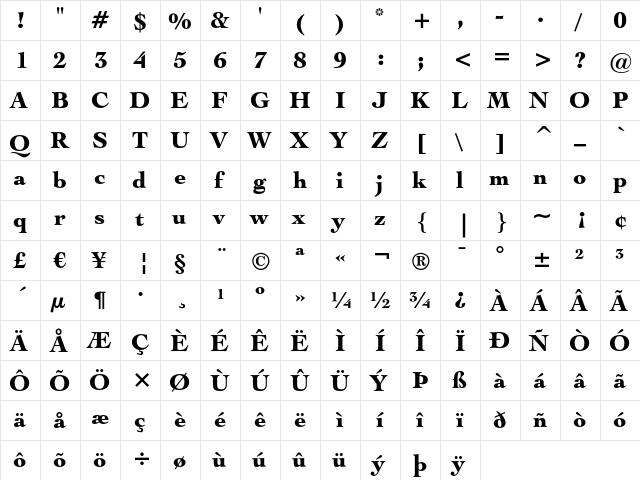
Engravers' Oldstyle 205 Black
Design Context for Engravers' Oldstyle 205 Typeface
Engravers' Oldstyle 205 carries the refined structure of traditional serif typography, with bracketed terminals and considered proportions that communicate credibility and craft.
Pro Tip: Set Engravers' Oldstyle 205 with slightly loose tracking in headlines to let each letterform's detail read clearly at display sizes.